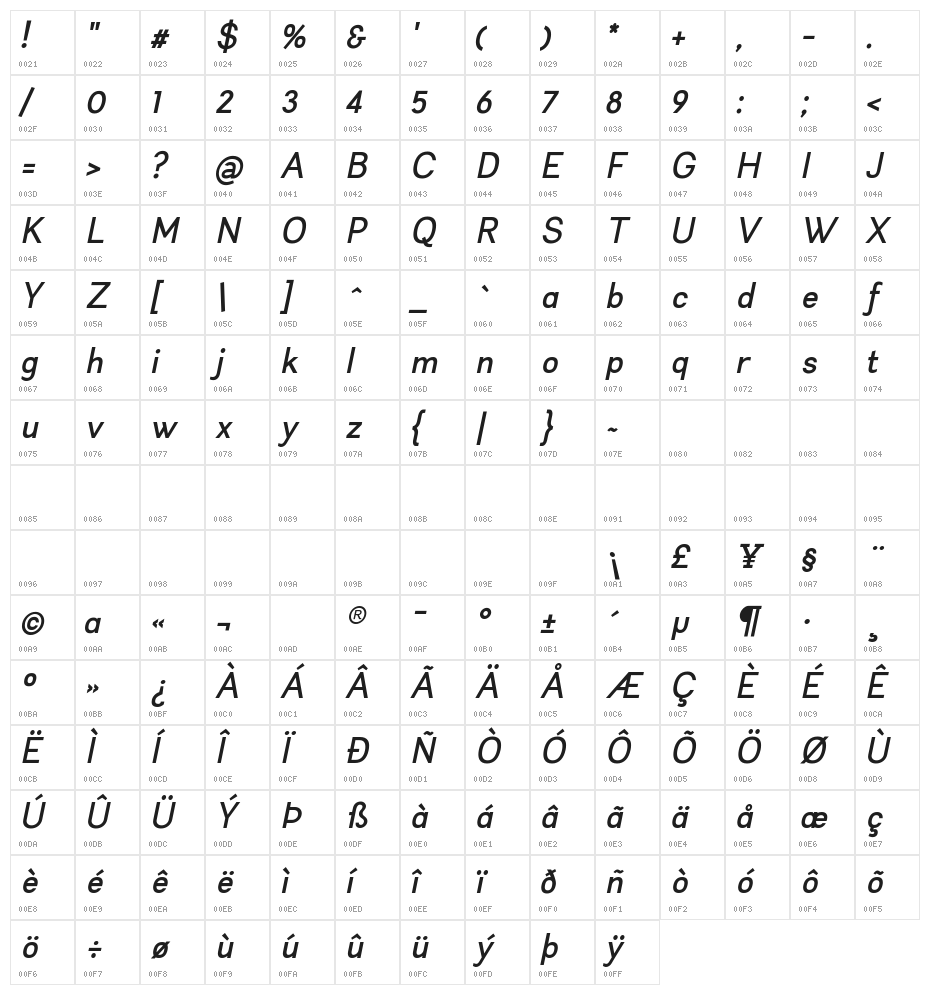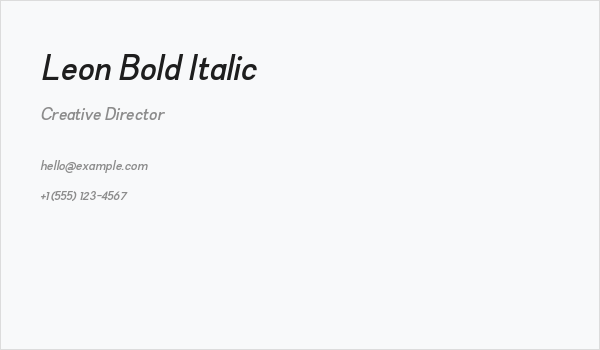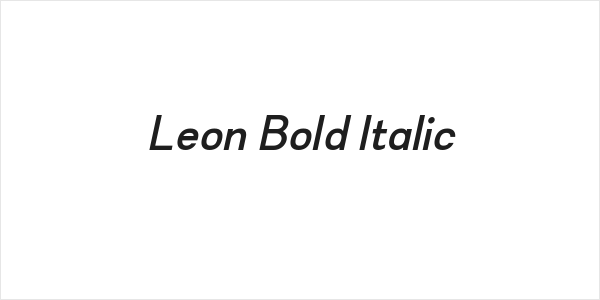
Leon Bold Italic Font
Leon Bold Italic Description
This font exhibits a bold and italicized style, characterized by its strong, slanted letterforms that convey a sense of dynamism and emphasis. The uppercase and lowercase letters maintain a consistent stroke width, contributing to a uniform appearance. The numerals are clear and easily distinguishable, while the special characters are well-defined, ensuring readability across various contexts. The overall design is modern and sleek, making it suitable for applications that require a bold statement.
| Use Case | Headlines, Logos, Advertising |
| Proposed Projects | Ideal for headlines, advertising materials, branding projects, and any design that requires a strong visual impact. |